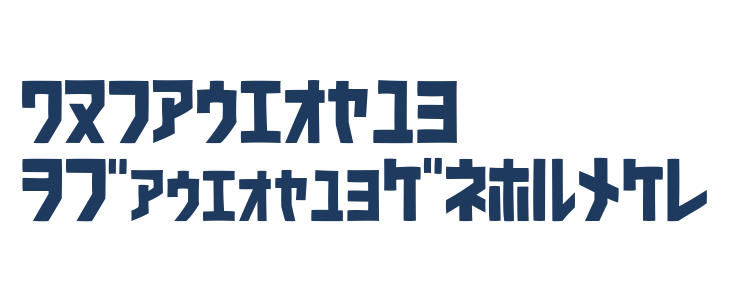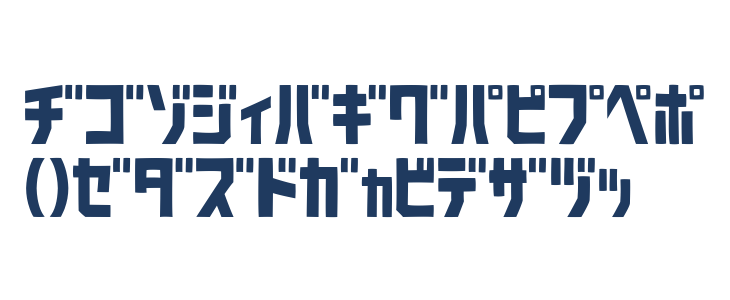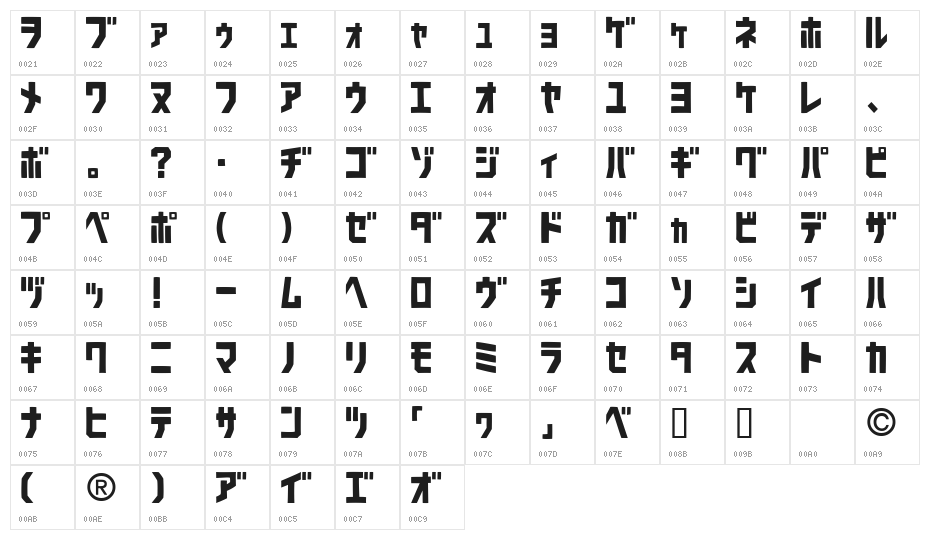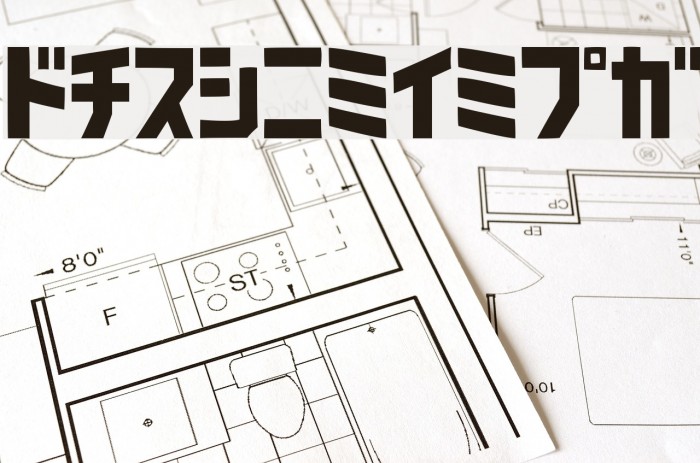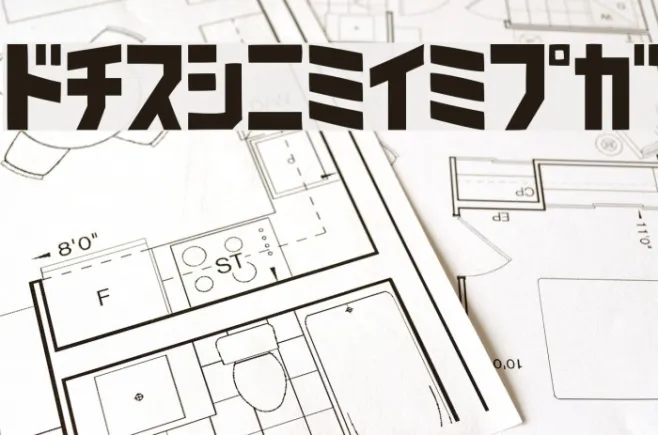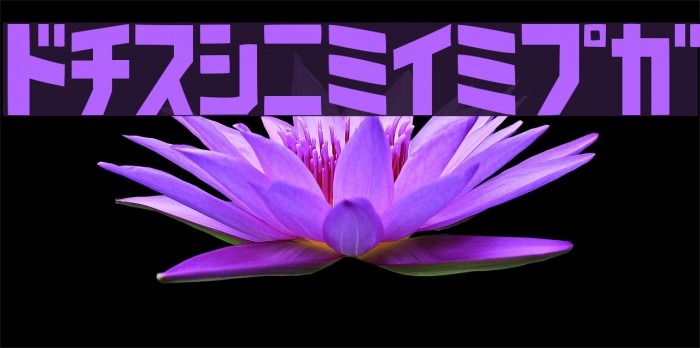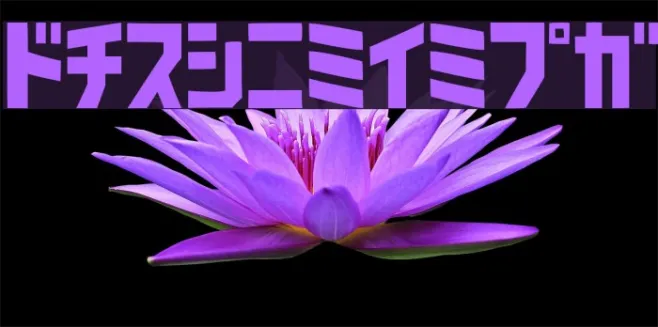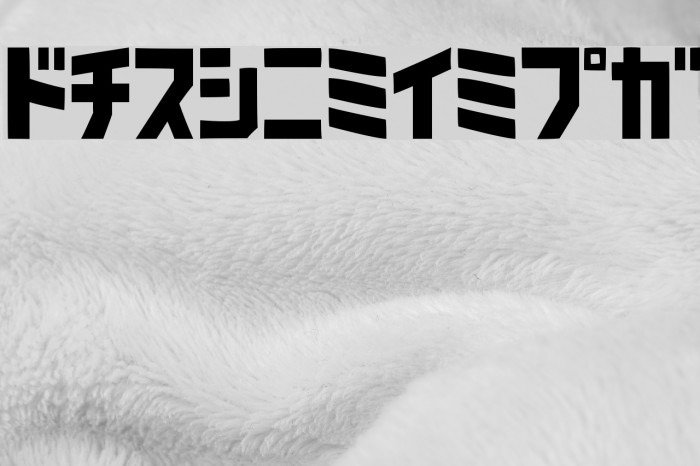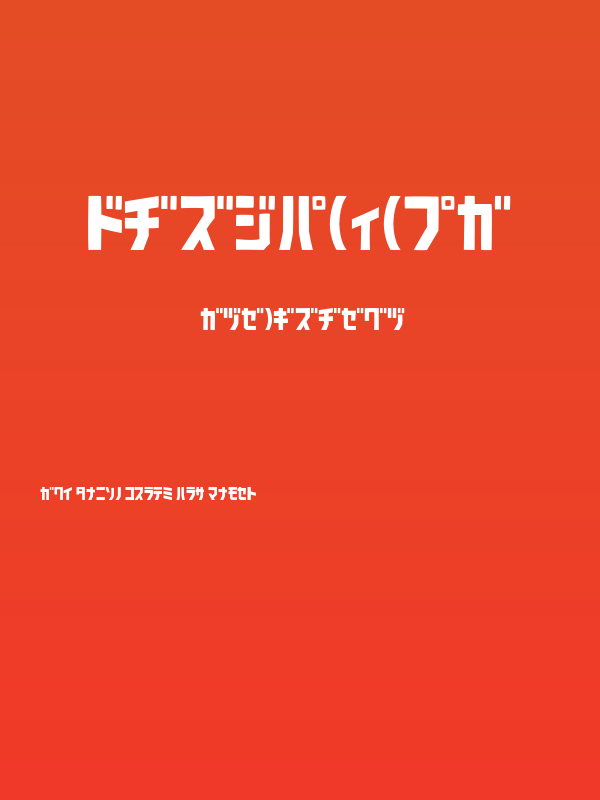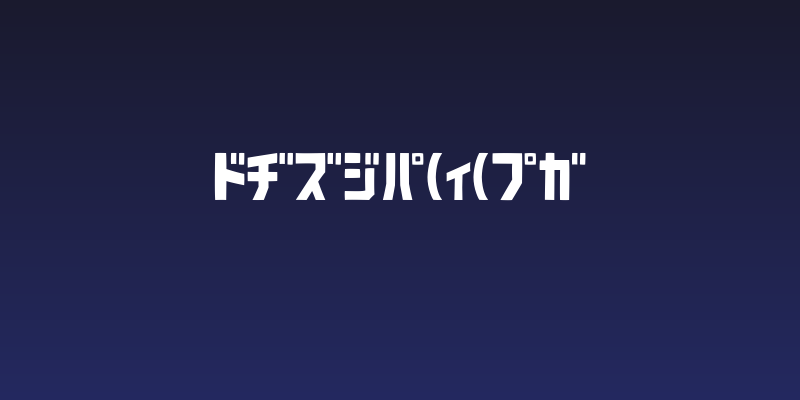
SardinenKT Font
SardinenKT Description
This font features bold, geometric shapes with a strong presence. The characters are blocky and angular, giving a modern and assertive feel. The strokes are uniformly thick, contributing to a high-impact appearance. The font's design is clean and straightforward, with minimal curves and a focus on straight lines and sharp angles. This style is reminiscent of industrial or futuristic themes, making it suitable for attention-grabbing headlines or branding that requires a bold statement. The uniformity in stroke width ensures consistency across all characters, enhancing readability while maintaining a distinctive style.